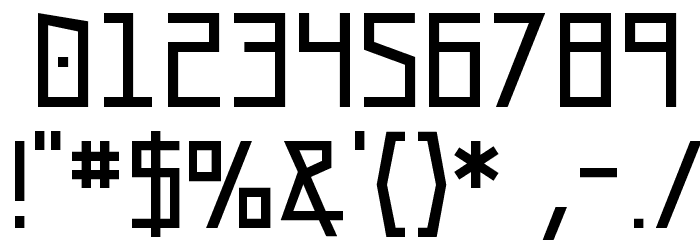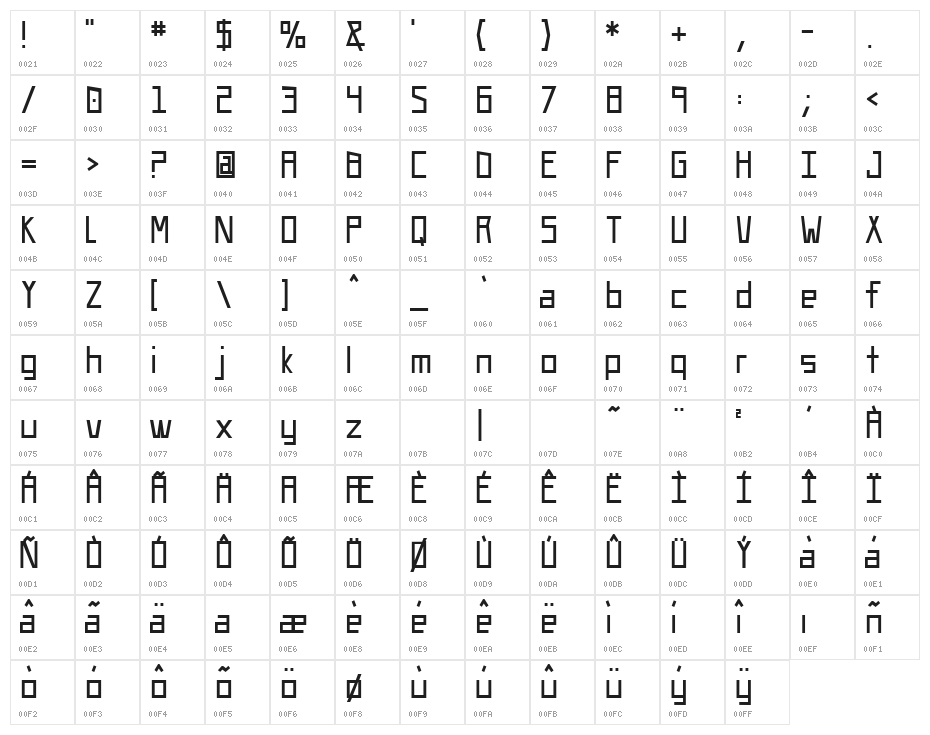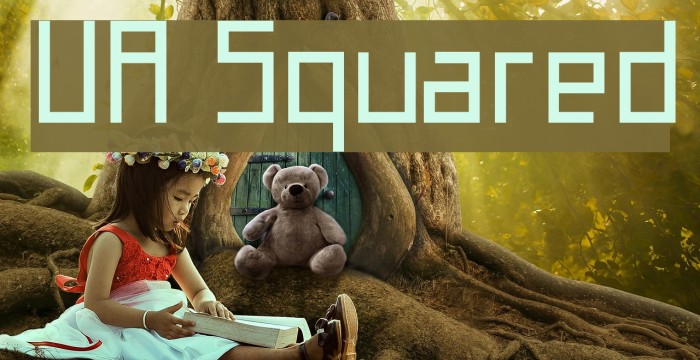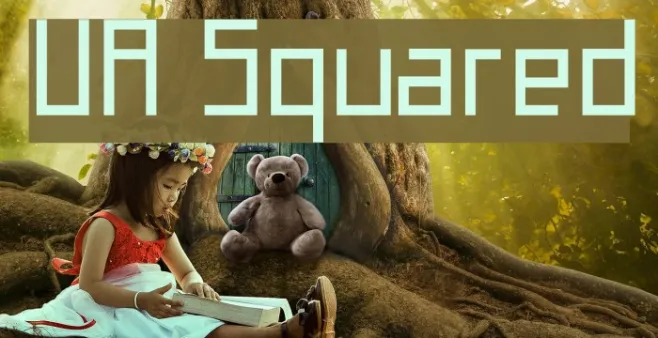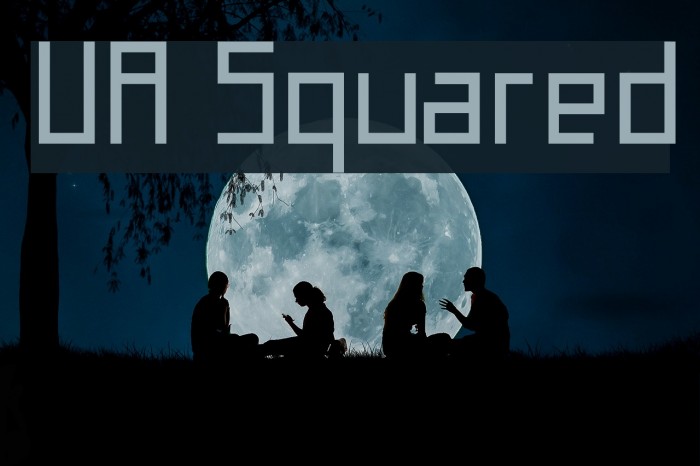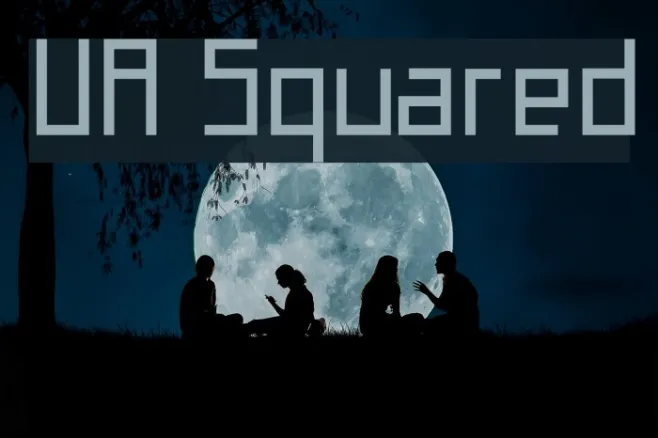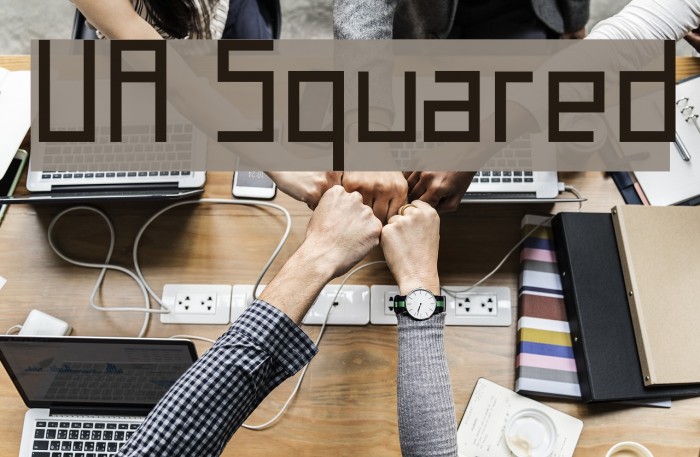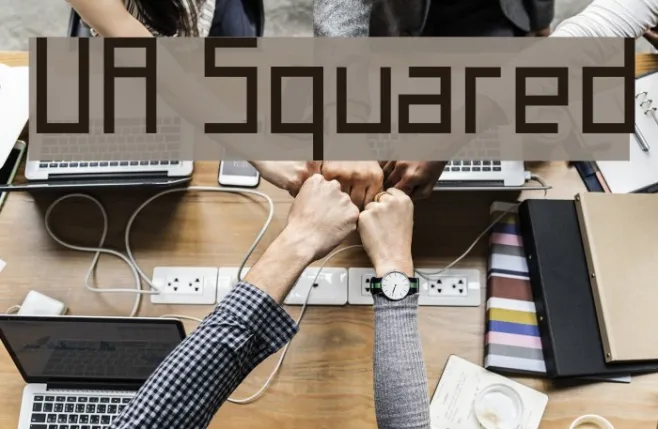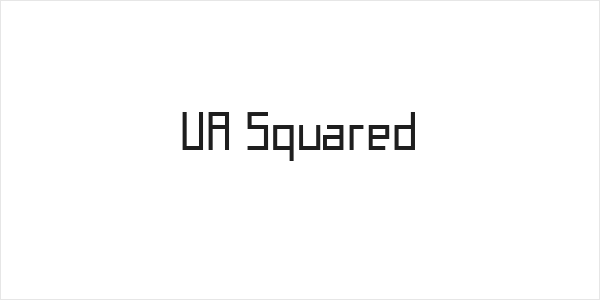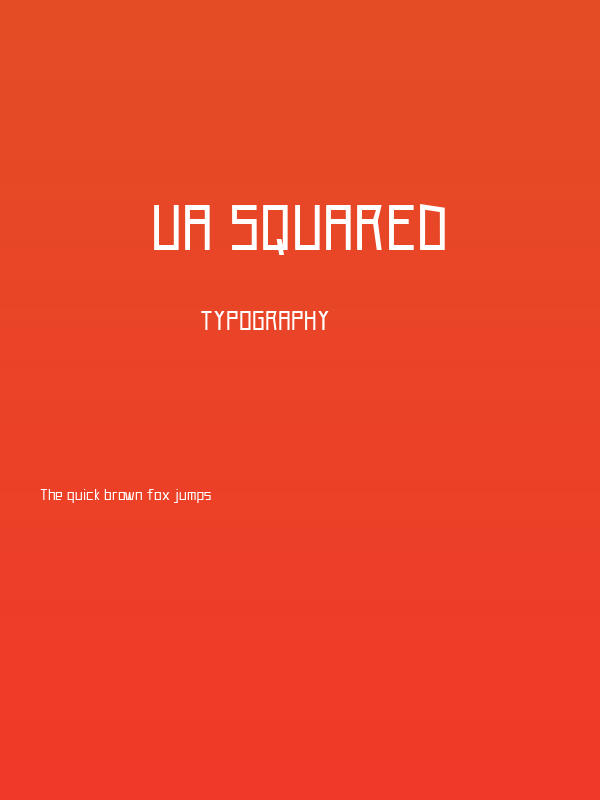
UA Squared Font
UA Squared Description
This font features a geometric and angular design, characterized by its squared-off edges and uniform line thickness. The uppercase letters are bold and commanding, while the lowercase letters maintain a consistent style with a slightly more compact form. Numbers and special characters follow the same geometric principles, ensuring a cohesive look across all characters. The font's structure is clean and modern, with a technical feel that suggests precision and clarity. Its unique style makes it suitable for projects that require a contemporary and distinctive appearance.
| Proposed Projects | Ideal for technology branding, modern posters, digital interfaces, and architectural designs. |